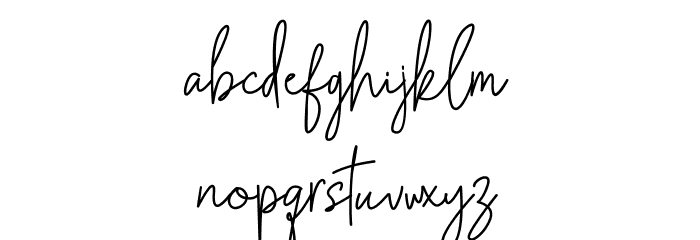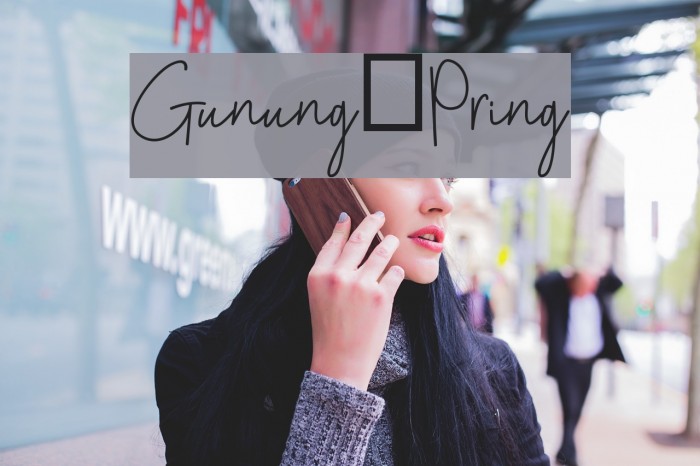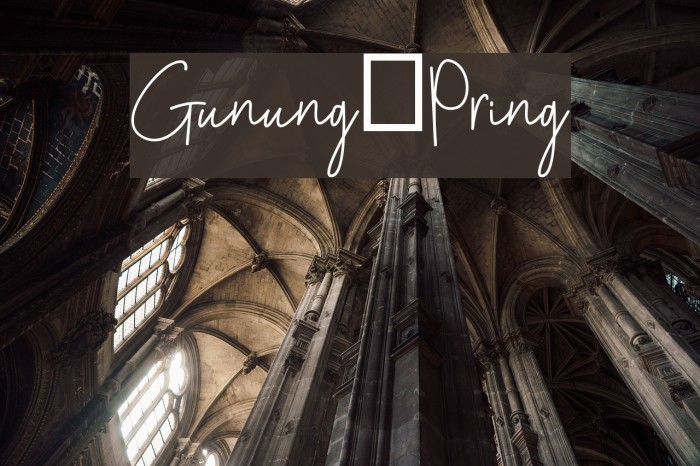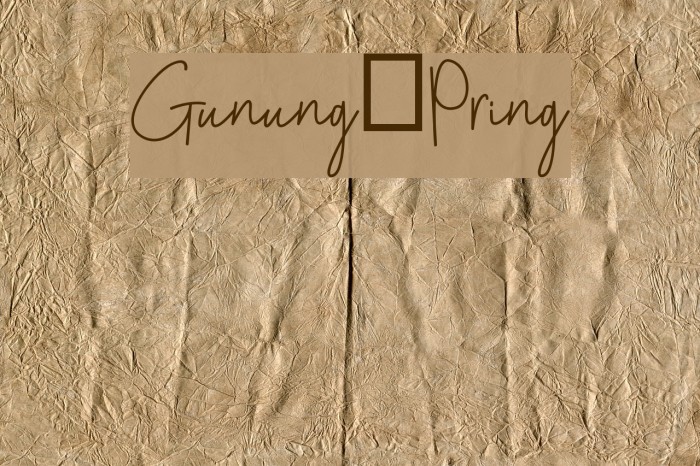
Gunung Pring Font
This font features a playful and casual handwritten style, characterized by its loose and flowing strokes. The uppercase letters have a tall and narrow appearance, with a slight slant that adds to the informal feel. The lowercase letters are more connected, resembling cursive handwriting, which enhances the font's personal touch. The overall design is light and airy, making it suitable for projects that require a friendly and approachable look. The font lacks special characters, focusing solely on the alphabet, which emphasizes its simplicity and ease of use.
A playful, casual handwritten font with flowing strokes and a friendly appearance.
- Proposed Projects: Ideal for greeting cards, personal branding, casual invitations, and social media graphics.
- Overall Style: Casual
- Use Case: Logos, Headlines, Informal Text